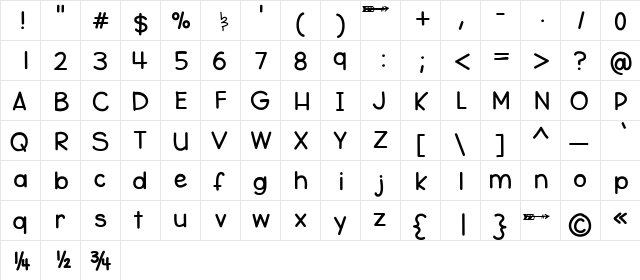
profeshhh Medium
profeshhh takes a measured approach to typography — its balanced proportions and neutral character make it a reliable workhorse for both digital and print work.